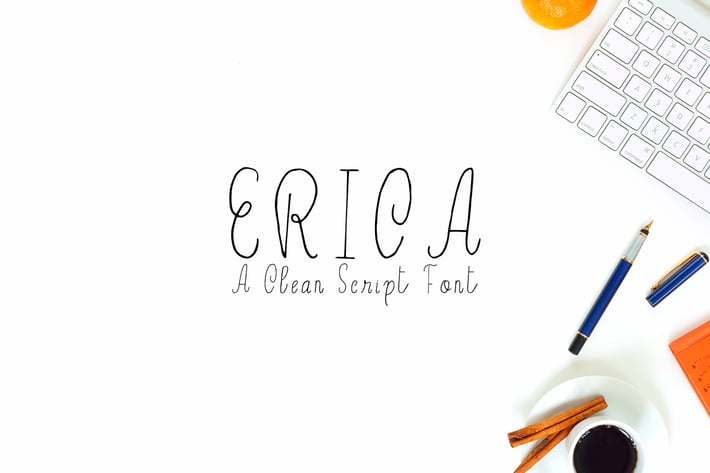
Erica Script Font
Erica is a beautiful handwritten font which contains 1 weight and that is specifically designed for minimal projects. It looks impressive for branding, websites, clean designs, logos, headlines, banners and templates etc. It looks gorgeous in all caps with a wide-set spacing if you want to try a classy look, or beautiful on its own in capital and lowercase letters for something completely timeless.